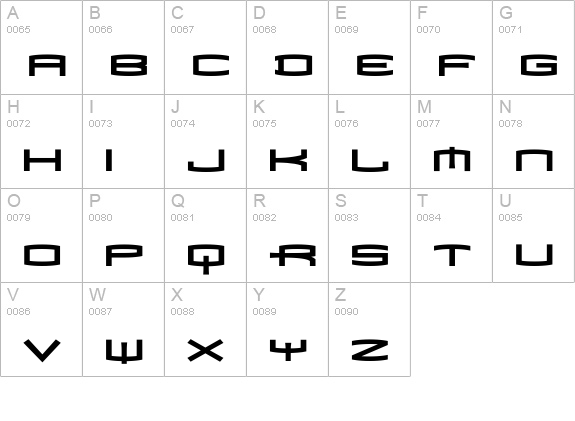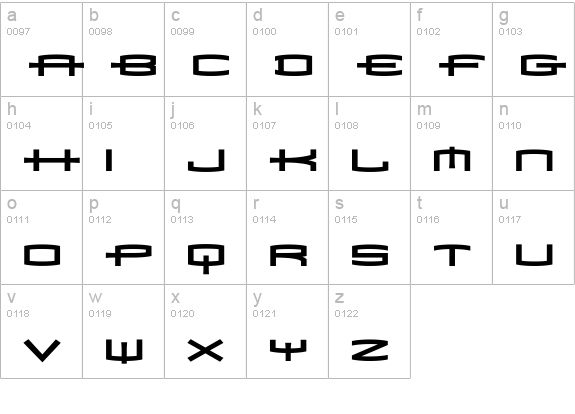
MataCondBold Font Details
MataCondBold is a captivating and versatile font that combines boldness and elegance to create a truly eye-catching design. With its clean lines and modern aesthetic, this font is perfect for a variety of creative projects, from logos and branding to headlines and posters. What sets MataCondBold apart is its unique ability to effortlessly command attention. Its bold weight adds a touch of strength and confidence to any design, while its subtle curves and refined details provide a sense of sophistication and professionalism. But the best part? MataCondBold is completely free. Yes, you read that right. This incredible font is freely available to download at FontsMarket.com. Whether you're a professional designer or a creative enthusiast, you can now access this stunning font without breaking the bank. So why wait? Elevate your designs with the power of MataCondBold. Download it today and unlock a world of limitless possibilities.